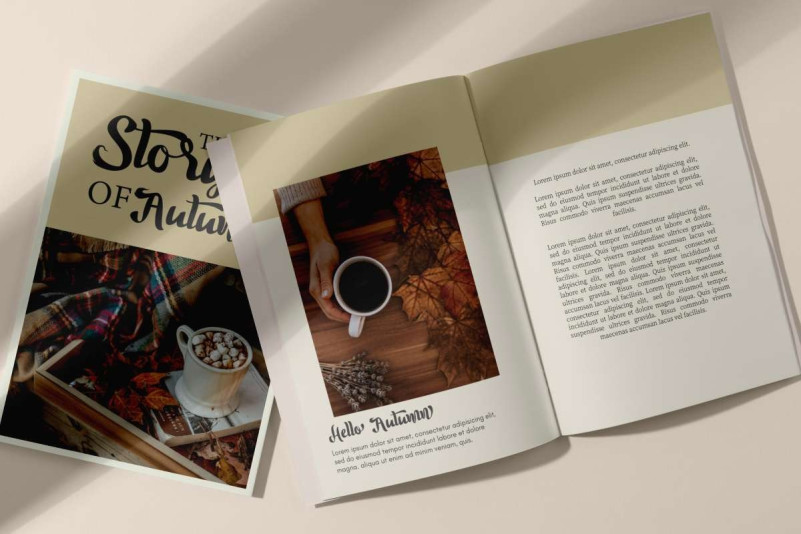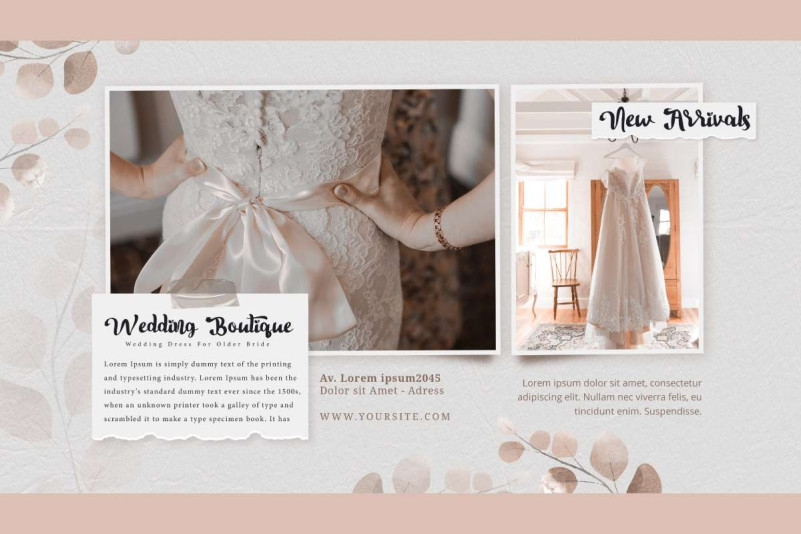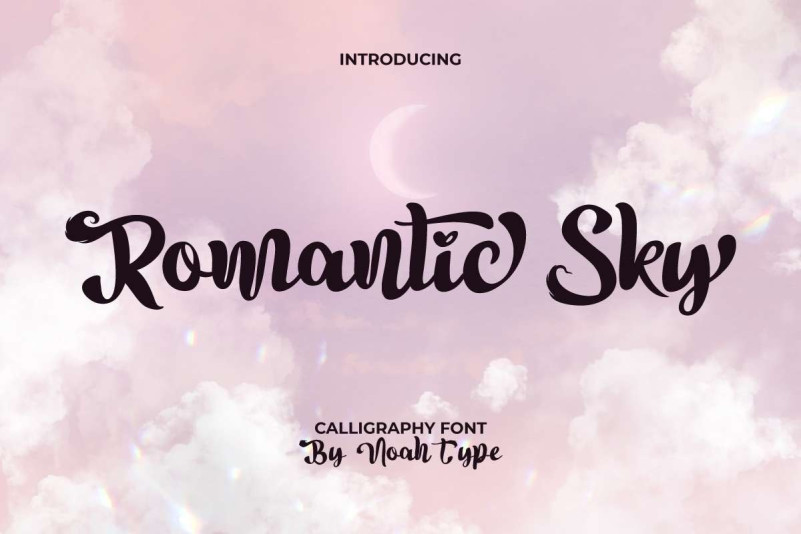
Romantic Sky Font
Romantic Sky Script Font is a romantic calligraphy font with lovely unique shape exclusively made by NoahType. This font has an exclusive unique look so you can feel a new experience in every design, such as frame art, invitations, labels, magazine catalog, menu, poster, product packaging, quotes, signage, stationery, title, website, and more!
Romantic Sky Font includes full set of Uppercase and Lowercase Basic Characters, Numerals, and Punctuation. It also contain ligature and alternate characters that will add perfection and making it suitable for many industries, such as boutique, café, cosmetic, fashion, florist, furniture, hotel, jewelry, photography, resort, restaurant, salon, wedding stuff, etc.